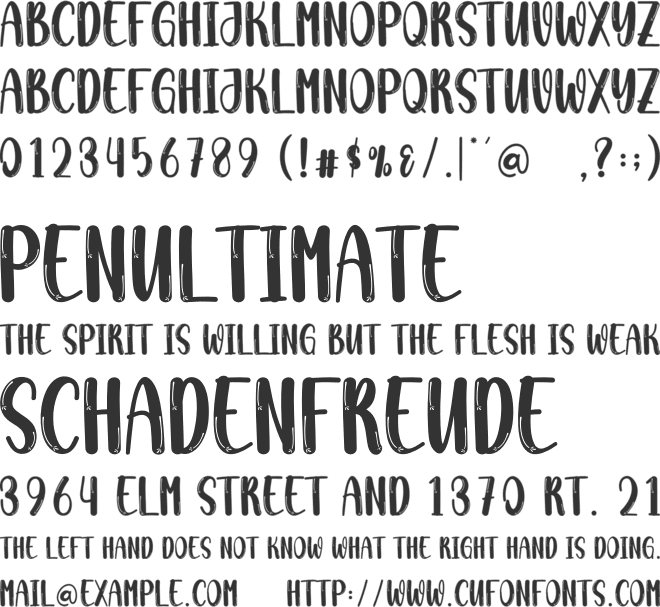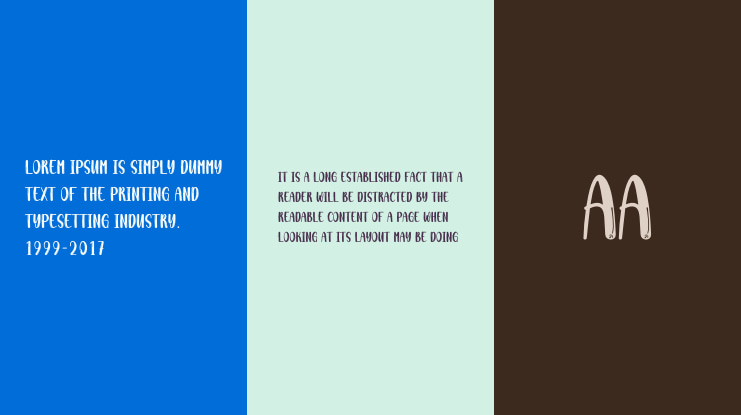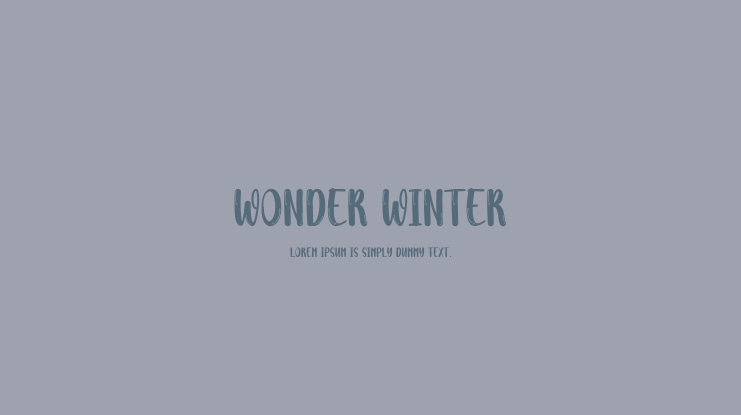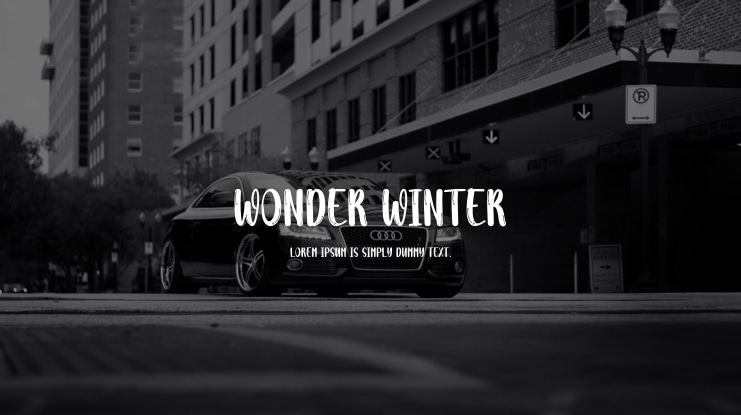
Wonder Winter Font
We offer special creative products designed to give you an extraordinary experience. Our latest style letters are perfect for wall displays, wedding invitations, social media posts, logos, advertisements, product packaging, product designs, labels, photography, watermarks, invitations, stationery, and any project that requires tasteful handwriting.